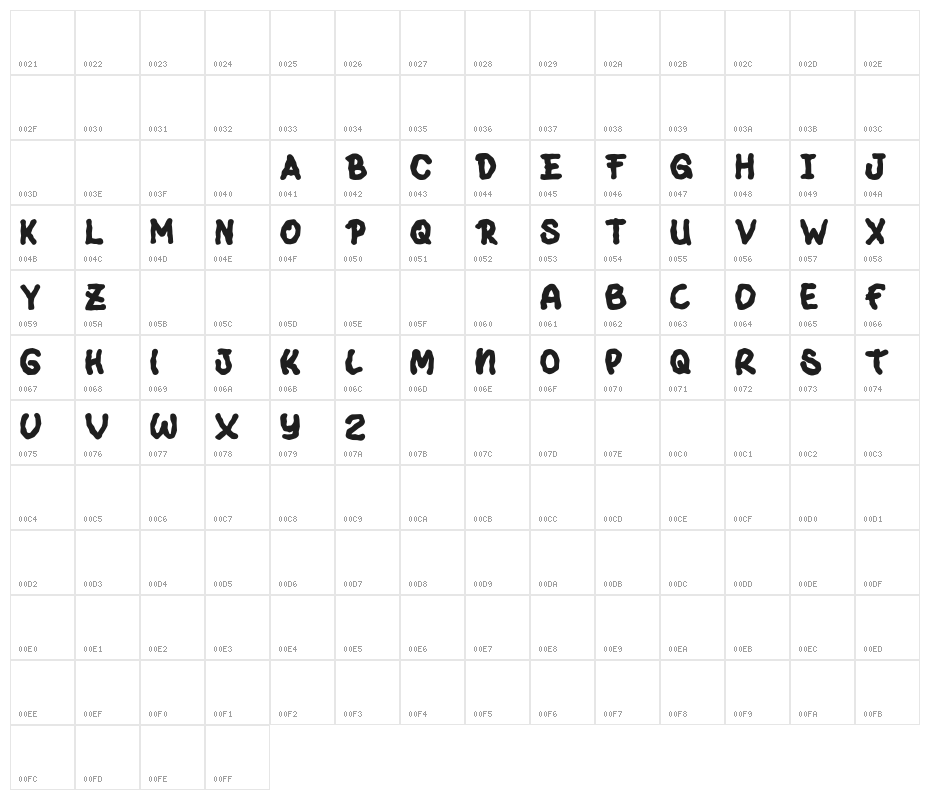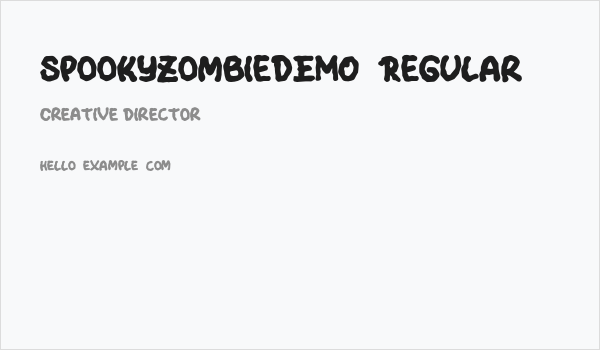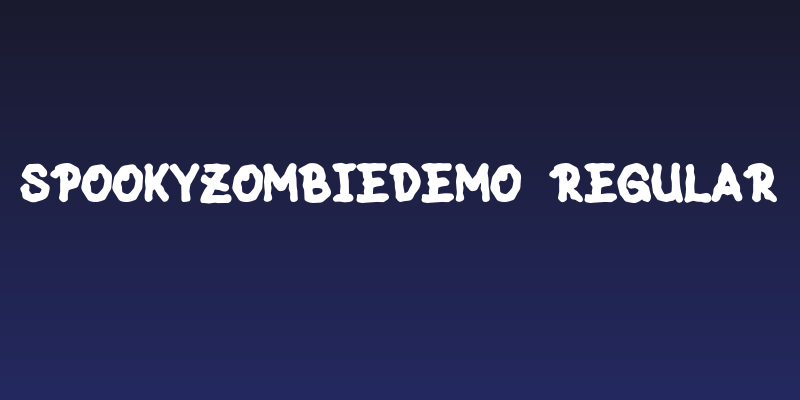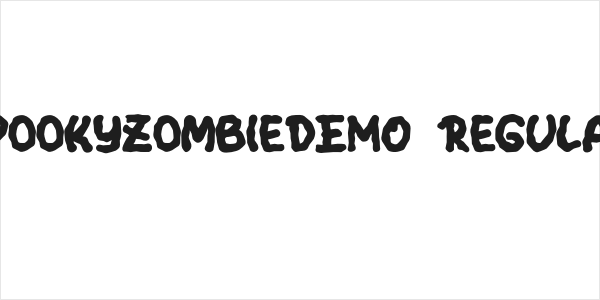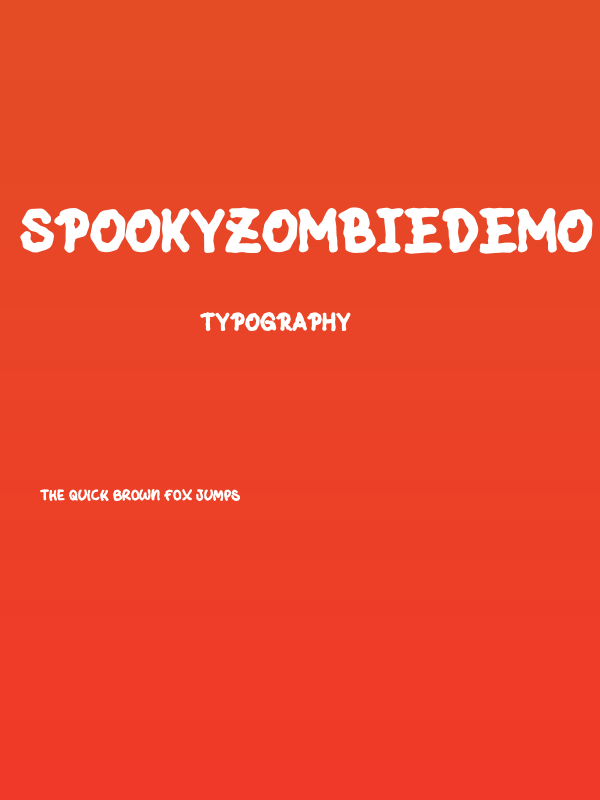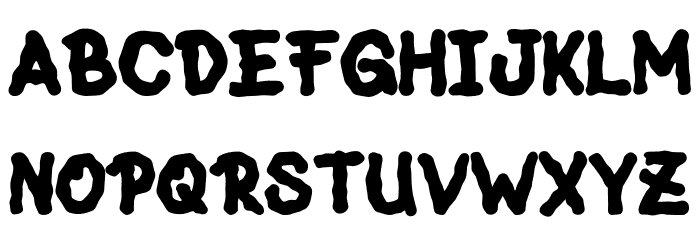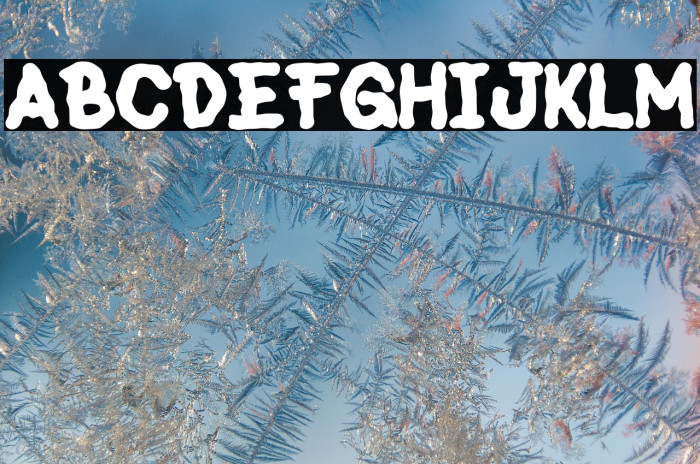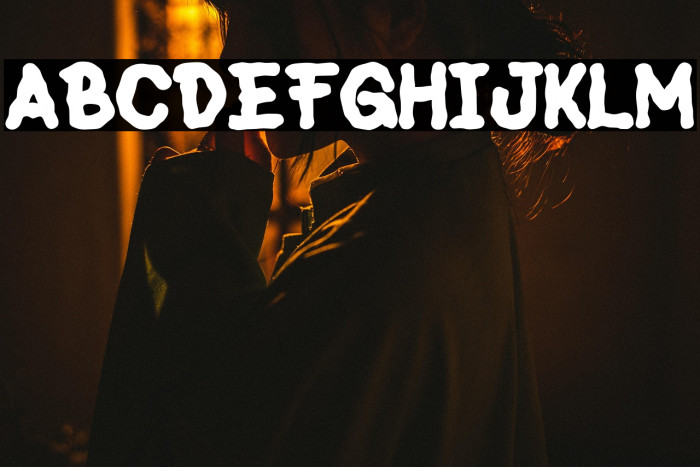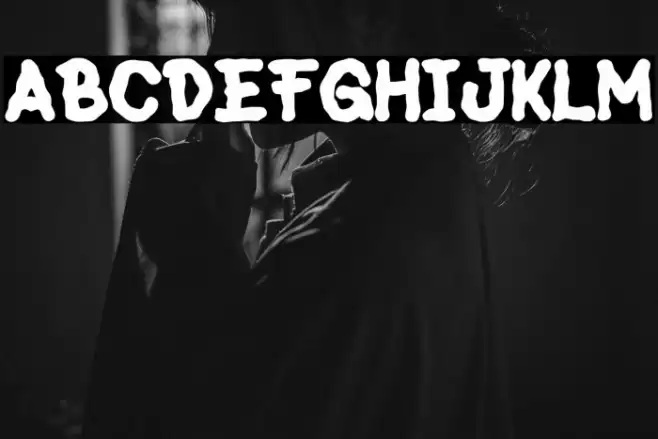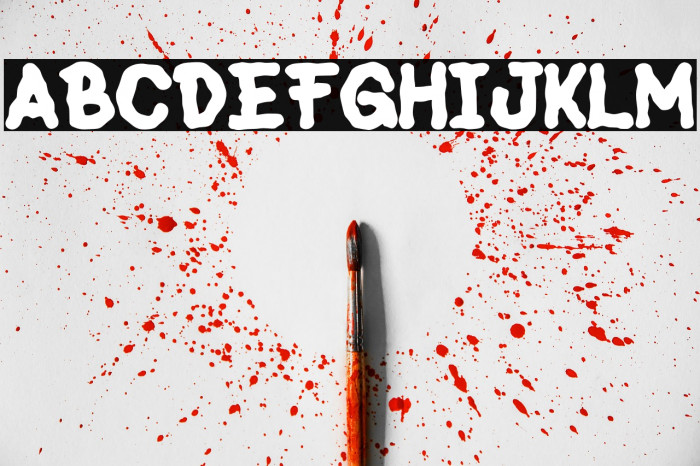
SpookyZombieDEMO-Regular Font
SpookyZombieDEMO-Regular Description
This font features a playful and eerie design, reminiscent of classic horror themes. The characters have a hand-drawn appearance with irregular edges, giving them a slightly chaotic and unsettling feel. The bold strokes and uneven lines contribute to its spooky aesthetic, making it ideal for Halloween-themed projects or anything requiring a touch of the macabre. The font maintains readability while delivering a distinct personality, perfect for capturing attention in creative designs.
| Proposed Projects | Ideal for Halloween invitations, horror movie posters, themed event flyers, and spooky merchandise designs. |